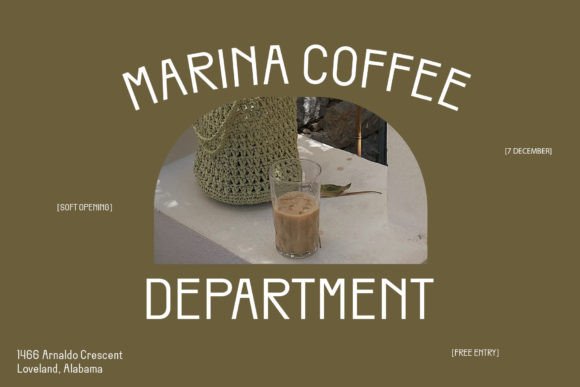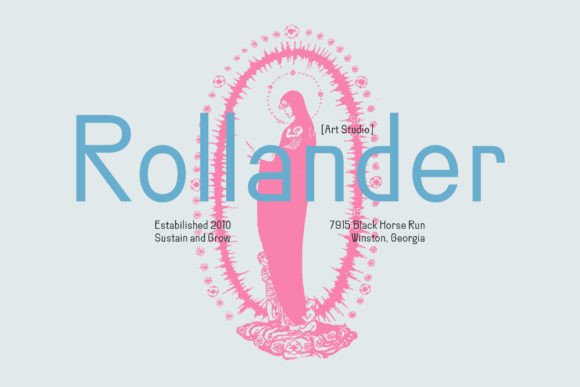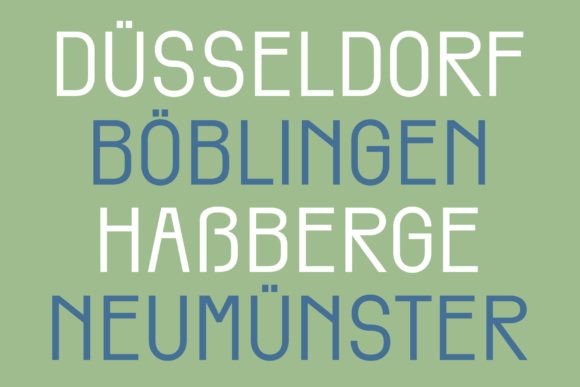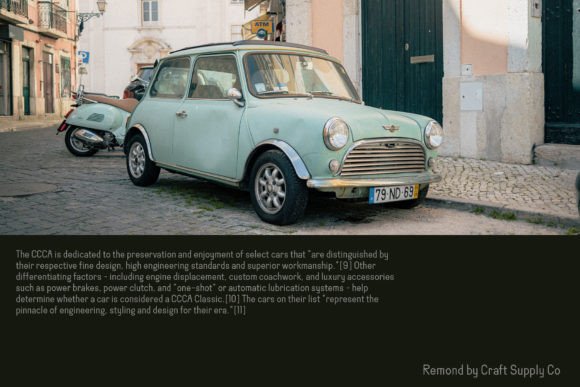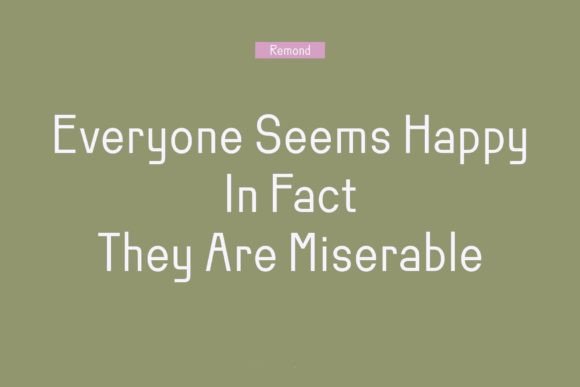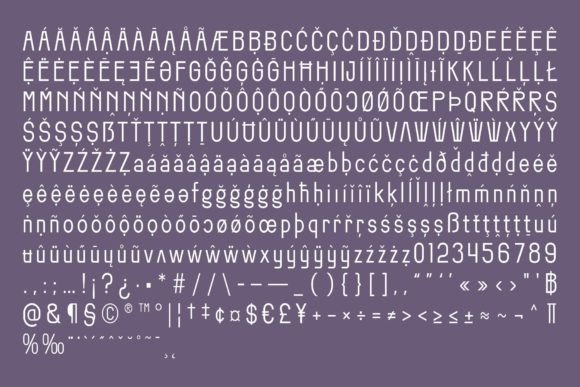
Introduction to Remond Font
Have you ever found yourself stuck in a creative rut, struggling to bring your ideas to life? You’re not alone. As designers, we’ve all been there at some point or another. But what if I told you that there’s a secret to unlocking your full creative potential? For me, it’s all about having the right tools at your disposal. And that’s where the Remond Font comes in – a retro sans serif typeface that’s about to revolutionize the way you approach your next project.
This sleek and modern font is designed to make a statement, with its geometric structures and clean lines perfect for display purposes. Whether you’re working on a high-profile campaign or a personal project, the Remond Font is sure to elevate your design to the next level. And the best part? It’s available for free download, complete with a transparent background that makes it easy to incorporate into your design. With its high quality and versatility, the Remond Font is an invaluable resource for any designer looking to take their creative projects to the next level.
Key Features of Remond Font
- High-quality design resource with a transparent background, ideal for creative projects.
- Unique characteristics include a modern, elegant feel and a wide range of language support, making it perfect for creative projects.
- As a free design resource, Remond Font is an excellent addition to any designer’s toolkit, offering a high-quality alternative to paid fonts.
Honest Review: Remond Font
I recently stumbled upon the Remond Font while searching for a free download for my creative project. I must say, I was impressed with its high quality and versatility. The font is available in a range of weights and styles, making it a great design resource for any project.
Here are some things that work well with the Remond Font:
- High-quality design that looks great on any background
- Transparent background option for easy integration with other design elements
- Range of weights and styles to suit different creative needs
- ⚠️ Limited character set, which may not be suitable for extended text-based projects
- ⚠️ Not suitable for use in situations where a high level of readability is required, such as in small text sizes
Overall, I’m quite impressed with the Remond Font and would definitely recommend it as a design resource. While it may not be perfect for every project, it’s a great addition to any designer’s toolkit.
The Remond Font is a high-quality design resource that can elevate any creative project. With its transparent background, this versatile font can be used in a variety of applications, from branding to typography.
To get the most out of the Remond Font, experiment with different font sizes, colors, and styles. This will help you achieve a unique and professional look for your creative project.
The Remond Font is commonly used in branding, typography, and design projects. Its transparent background makes it a versatile choice for a wide range of applications.